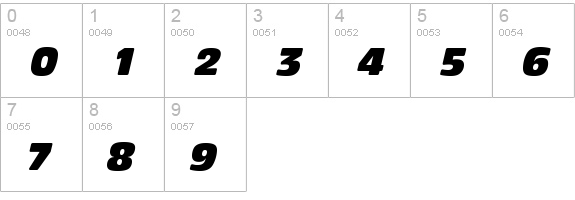
Antique Olive T Compact Italic Ro1 Font Details
Antique Olive T Compact Italic Ro1 is a distinctive, italic variant in the Antique typeface family \xE2\x80\x94 well suited to design and typography projects.
Antique Olive T Compact Italic Ro1 font is a timeless and elegant typeface that exudes sophistication and charm. Its slanted and compact design adds a modern twist to the classic Antique Olive style, making it perfect for adding a touch of flair to your projects. The italicized letters convey a sense of movement and dynamism, making this font ideal for creating eye-catching headings and titles. What makes Antique Olive T Compact Italic Ro1 font even more appealing is that it is available for free download at FontsMarket.com. This means that you can easily access this beautiful typeface and use it in your designs without any cost. Whether you're working on a branding project, a website design, or any other creative endeavor, Antique Olive T Compact Italic Ro1 font is sure to elevate your work and make a lasting impression. Download it now and experience the timeless beauty of this exquisite font.